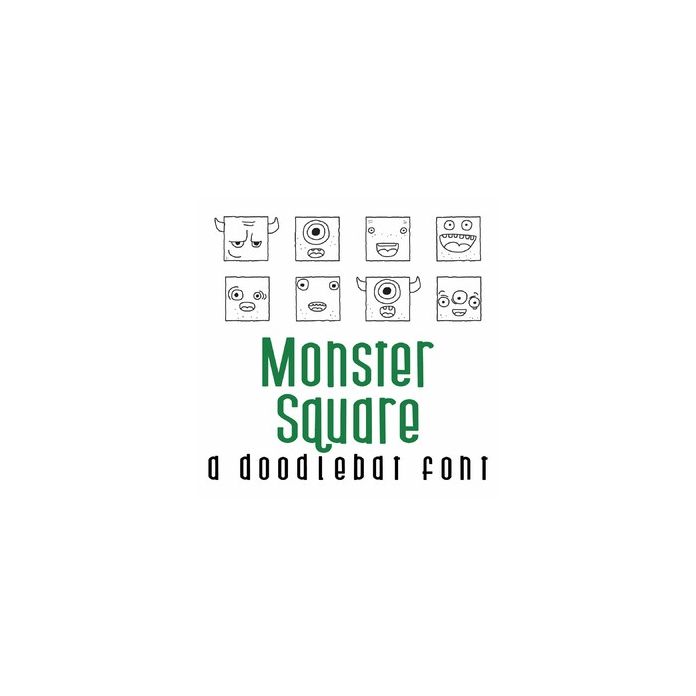
This fun doodlebat font features 26 cute square face monsters. Perfect for Halloween, cards, gifts, decor, crafts, scrap book pages, planner stickers and more!